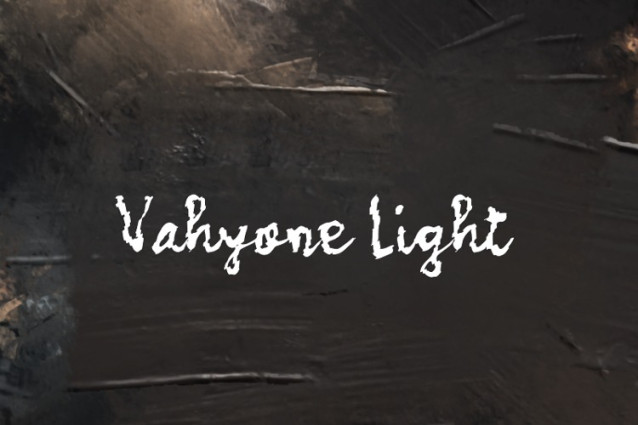
Vahyone Light Font
Vahyone Light Font, suitable for any design needs : logo, branding, modern advertising design, logos, poster quote, book / cover Title, editorial design, website / blog, card, t-shirts, and any hand-lettered needs.